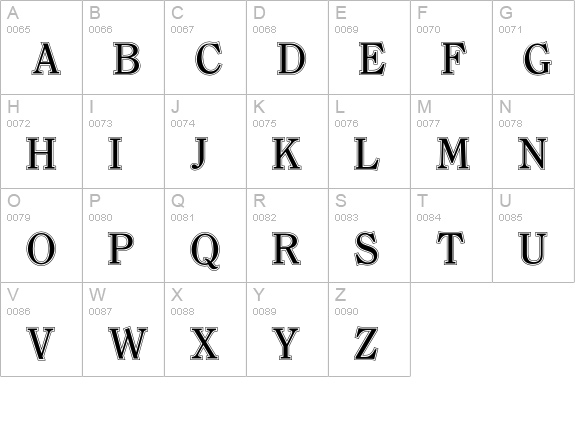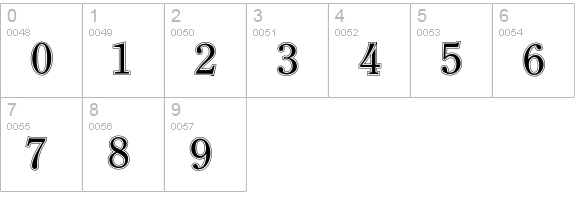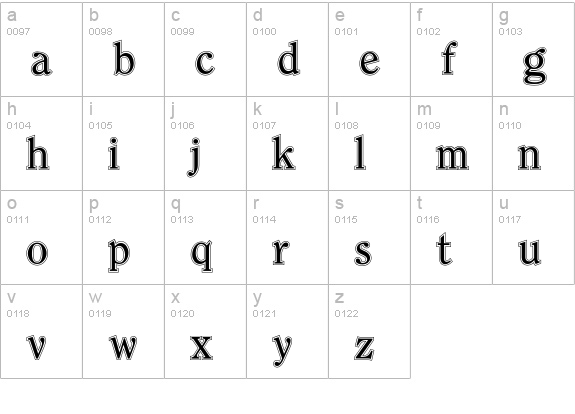
ClearfaceContour Font Details
ClearfaceContour font is a striking display typeface that exudes a sense of modern elegance and sophistication. Its clean lines and distinct contours make it perfect for creating eye-catching headlines, logos, and branding materials. The unique combination of sharp edges and smooth curves gives ClearfaceContour a dynamic and versatile look that is sure to make your designs stand out. What sets ClearfaceContour apart is not only its sleek design, but also the fact that it is available for free download at FontsMarket.com. This means that you can easily access this stylish font without any cost, making it a valuable addition to your font library. Whether you're a graphic designer, a marketer, or a creative enthusiast, ClearfaceContour offers endless possibilities for creating impactful and visually appealing designs. Elevate your projects with ClearfaceContour and make a bold statement today!